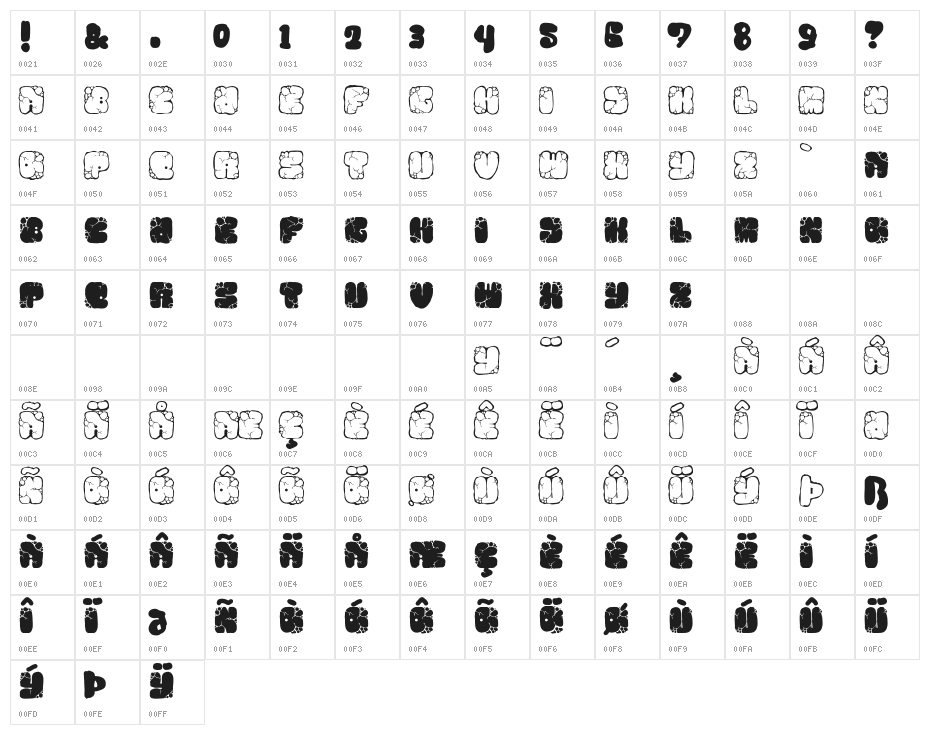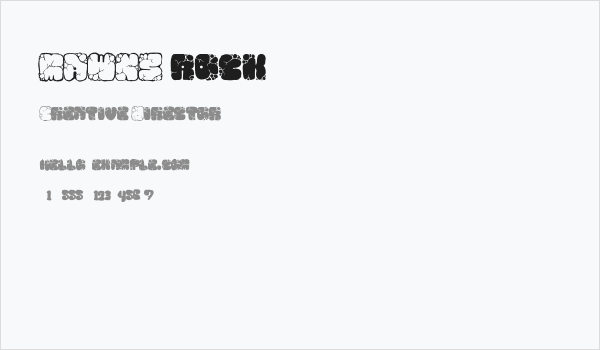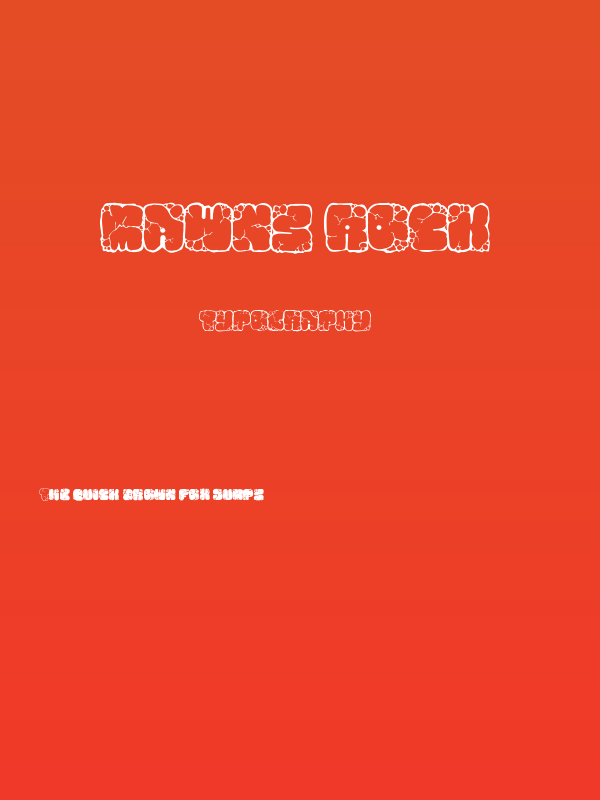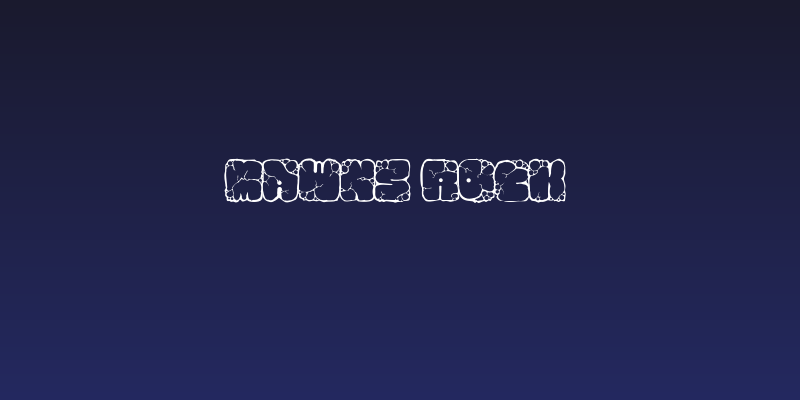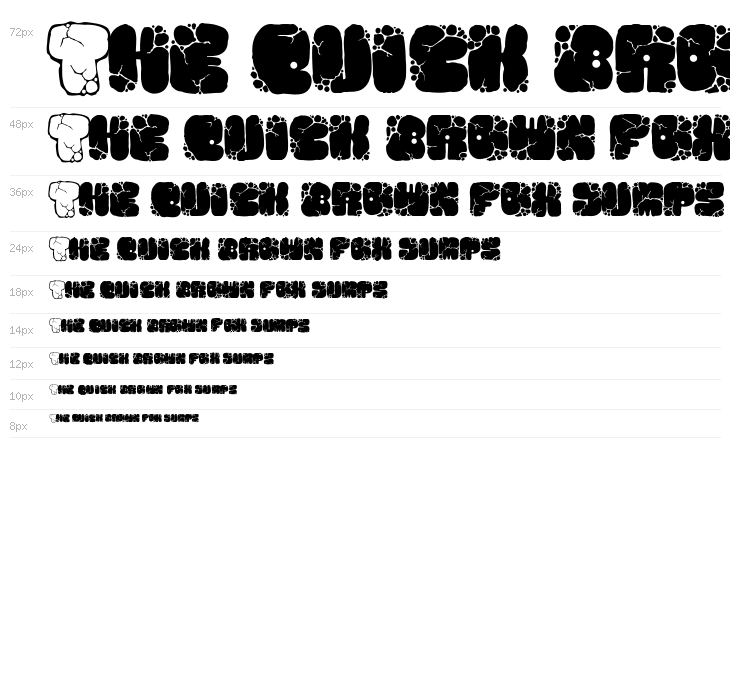
MAWNS rock Font
MAWNS rock Description
A playful, bubbly font with a textured, organic appearance resembling bubbles or foam.
| Overall Style | Playful, Organic, Bubbly |
| Use Case | Headlines, Logos, Posters, Children's materials |